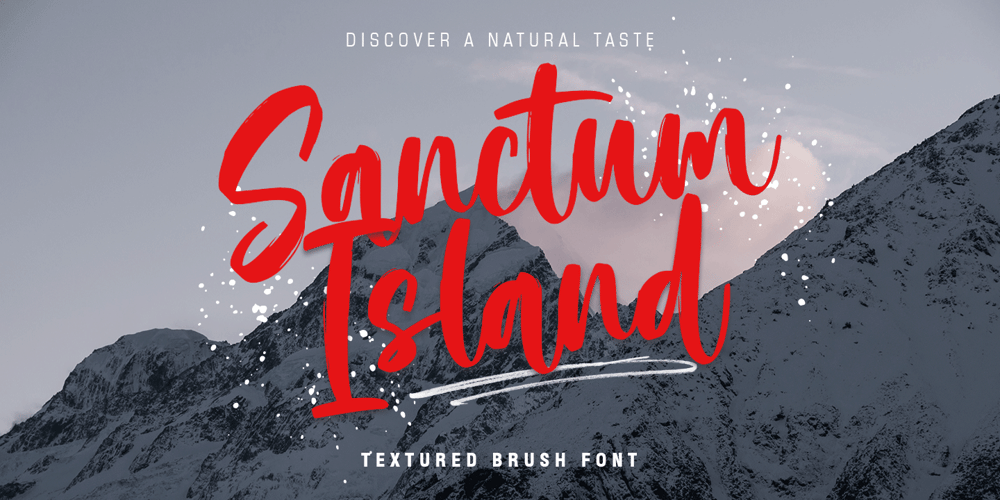
Sanctum Island Font Family was designed by Muhajir and published by Skinny Type. Sanctum Island contains 2 styles and family package options. Introducing Sanctum Island an handwritten font with a high detailed dry brush texture.Sanctum Island has been designed to fit a wide range of projects from urban style to classic branding with a characters set to completely change the look of your design.You can use it for business branding, Instagram quotes, blog headers, fashion apparel, stationery and more…Please note that Sanctum Island includes both standard and alphabets.Sanctum Island includes:Sanctum Island • A dry brush script font with uppercase and lowercase characters, ligatures, numerals and punctuation. Kingston Extras • A full set of brushed elements : 52 hand-drawn swashes, doodles and paint drips. How to use Sanctum Island ExtrasTo use the Sanctum Island Extras characters simply install the Sanctum Island Extras.otf file, select it from your font menu and type any letter from uppercase A to lowercase z to have a swash or a paint splat. You can refer to the Sanctum Island Extras Map Character included in the folder to see which letter correspond to which element.Multilingual supportSanctum Island supports multilingual characters for western, central and south-east European languages. Feel free to message me if you’re unsure of any language support.MoreSanctum Island is compatible with any software that can read a standard font, though ligatures require a software that is Opentype capable. Most programs now are compatible with Opentype features. Fonts are provided in OTF and TTF. Any question? Feel free to contact me i’ll be glad to help you :)Enjoy!